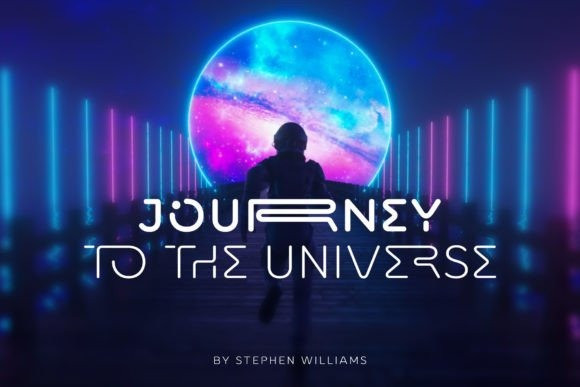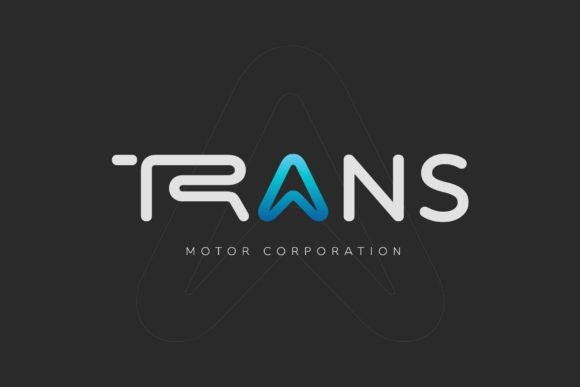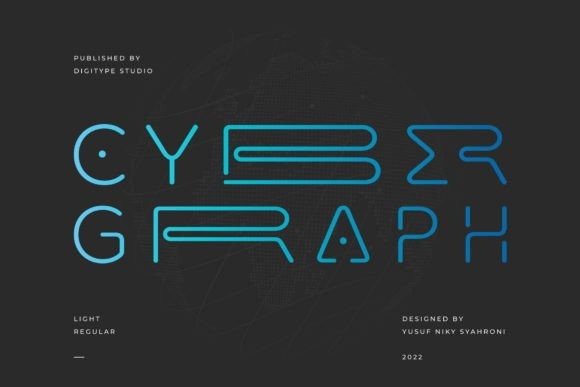
Cyber Graph Font
Cyber ​​Graph Display Font is a rounded futuristic font. This modern and bold vibe can easily apply to your favorite designs that require a sci-fi touch.